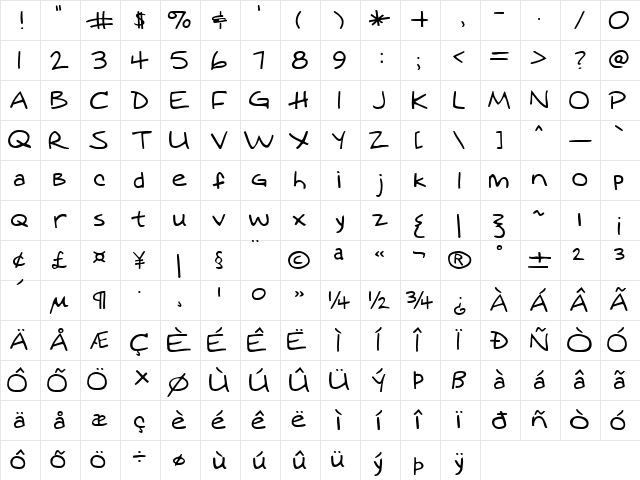
augie Regular Free Font
augie Regular
augie Family
Complete augie Regular glyph index. Displaying only characters natively supported by augie Regular font.
Design Context for augie
augie is a composed and adaptable typeface that performs quietly and consistently across a wide range of design contexts.